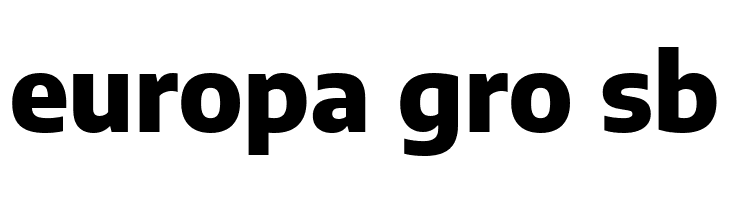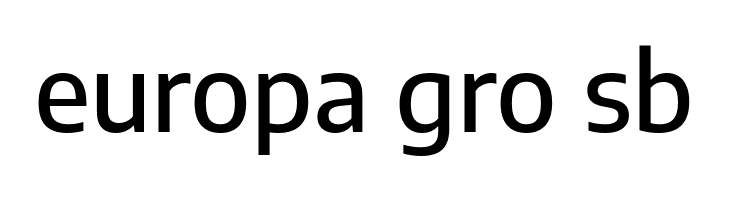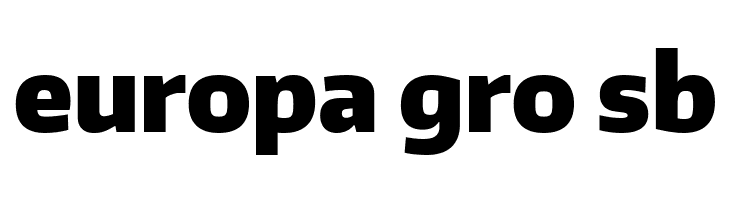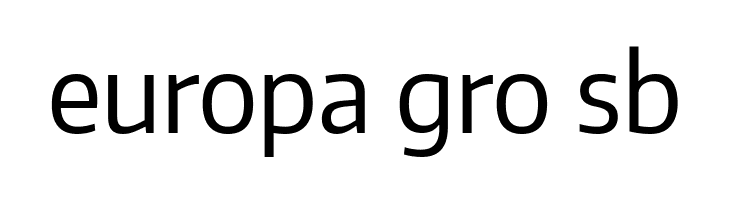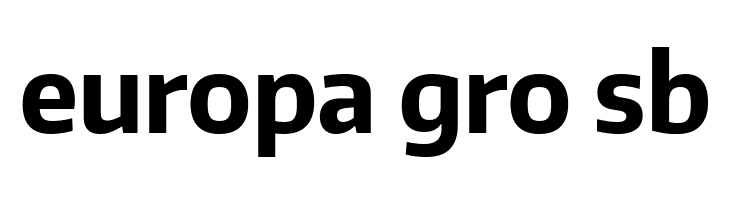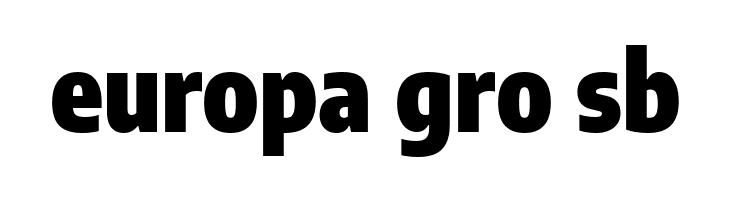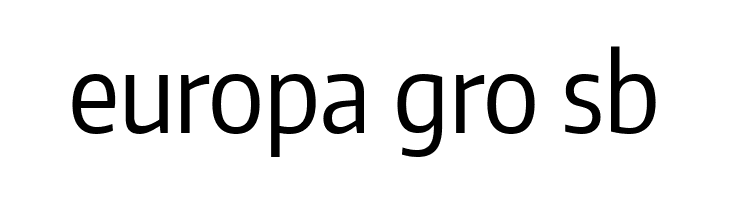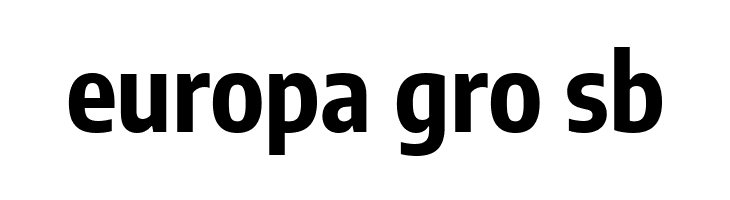
A modern, compressed sans-serif font with an extra light weight, ideal for minimalist designs.
A modern, compressed sans-serif font with a light and elegant style.
A modern, compressed sans-serif font with medium weight and tight spacing.
A modern, compressed sans-serif font with semi-bold weight and geometric design.
A modern, thin, and compressed sans-serif font with a clean and minimalist style.
A modern, clean, and condensed sans-serif typeface with a focus on readability.
A bold, condensed font with a modern and impactful style.
A bold, condensed sans-serif font with a modern and clean design.
A modern, extra bold, condensed sans-serif font with tight spacing and low contrast.
A modern, condensed sans-serif font with an extra light weight and tight spacing.
A modern, condensed sans-serif font with a light weight and clean design.
A modern, condensed sans-serif font with medium weight and excellent legibility.
A modern, condensed sans-serif font with uniform strokes and excellent readability.
A modern, condensed sans-serif font with a clean and professional look.
A modern, thin, and condensed sans-serif font with a clean and minimalist design.
A bold, expanded sans-serif font with a modern and impactful style.
A bold, expanded sans-serif font with a modern and clean design.
A bold, expanded sans-serif font with a modern and impactful design.
A modern, expanded sans-serif font with an extra light weight and clean lines.
A modern, expanded sans-serif font with a light weight and clean design.
A modern, expanded sans-serif font with a clean and balanced design.
A modern, expanded sans-serif font with clean lines and excellent readability.
A modern, expanded sans-serif font with semi-bold weight and uniform stroke width.
A modern, narrow sans-serif font with an extra light weight and sleek design.
A modern, narrow, and light sans-serif font with a sleek and elegant appearance.
A modern, narrow sans-serif font with clean lines and excellent legibility.